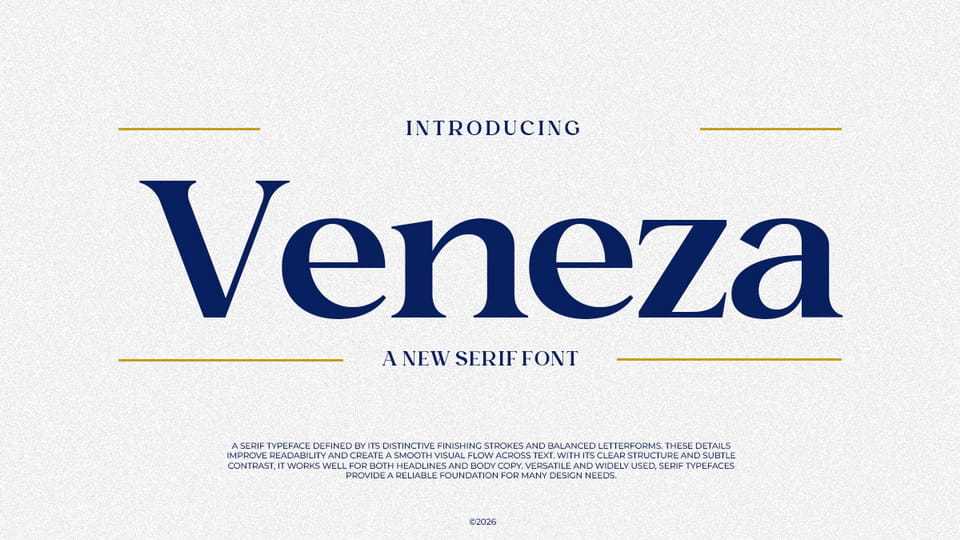
Download Veneza font, a modern serif typeface designed with clarity, balance, and refined simplicity in mind. Its clean structure and subtle contrast create a smooth reading experience while maintaining a strong visual identity.